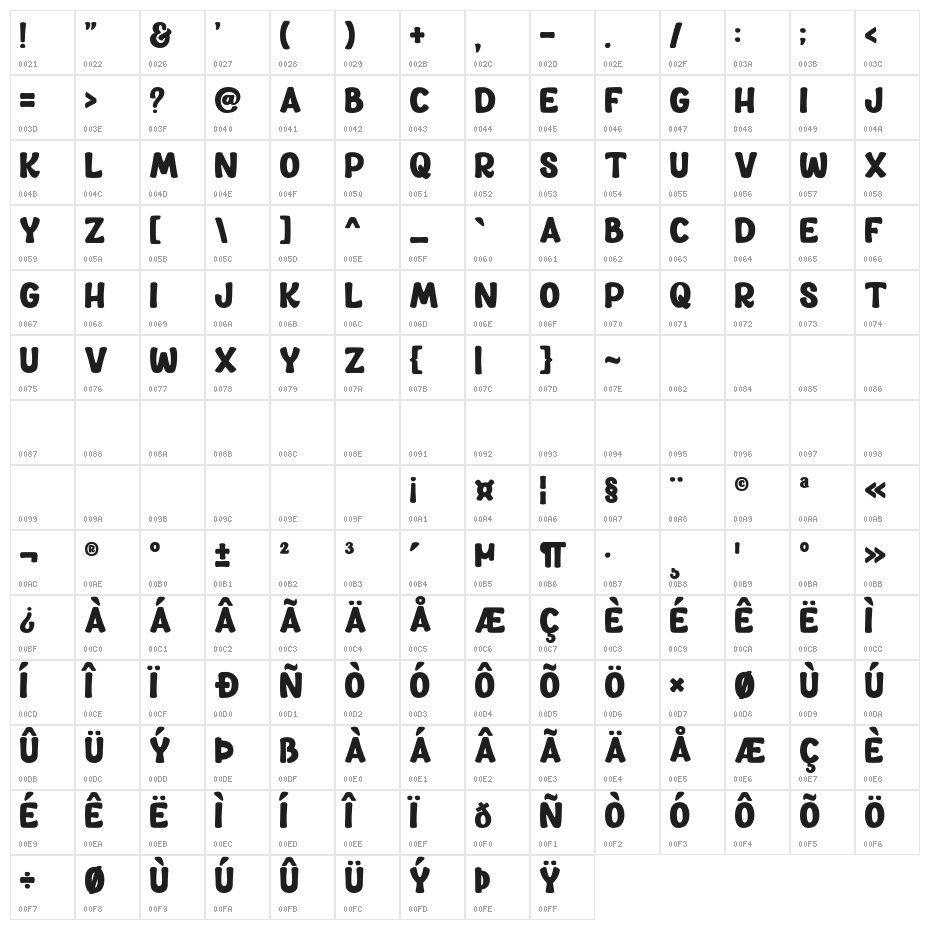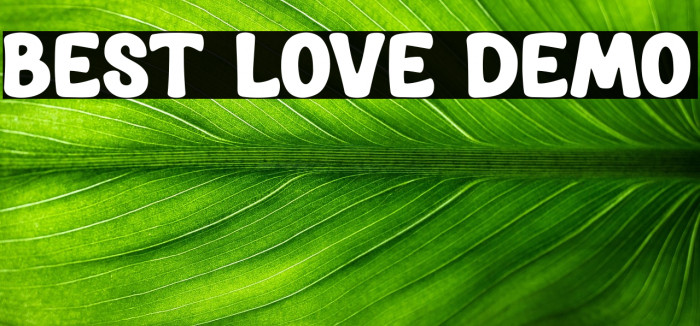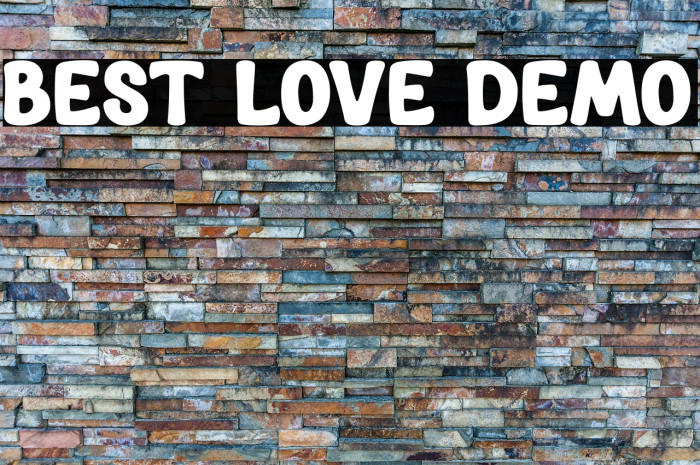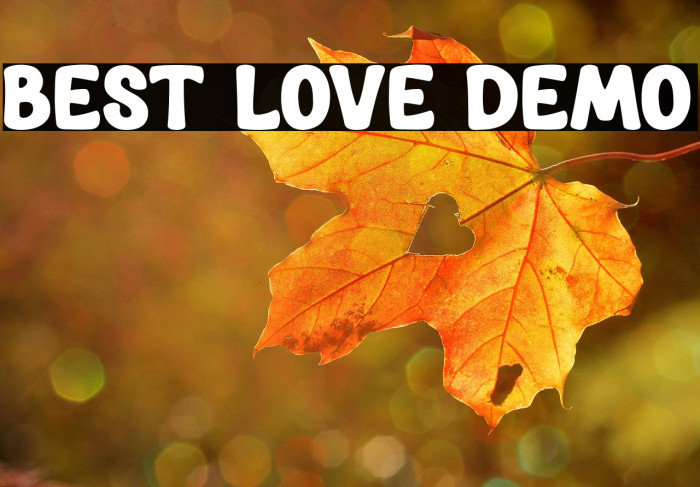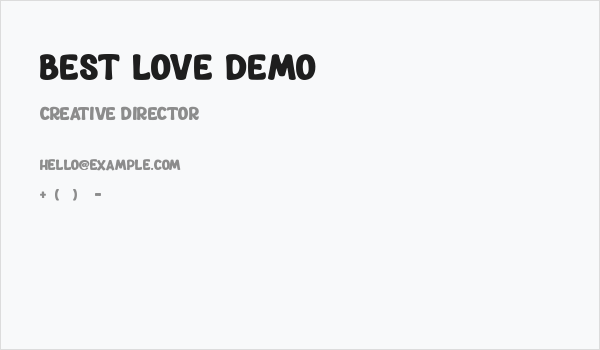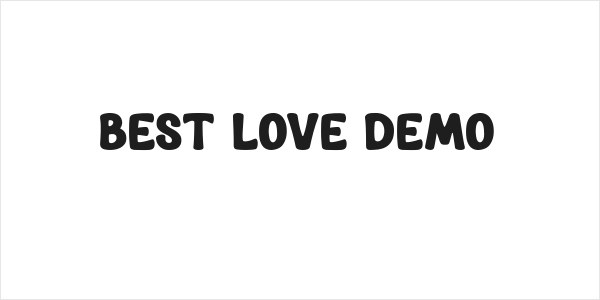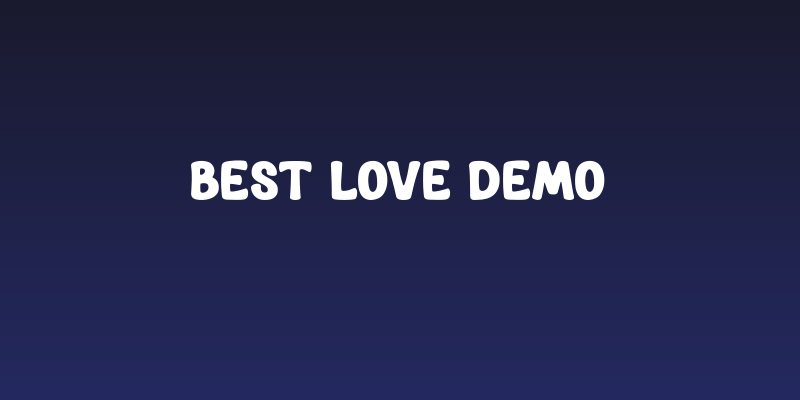
Best Love DEMO Font
Best Love DEMO Description
This playful and bold font features rounded edges and a slightly irregular shape, giving it a friendly and approachable appearance. The characters are thick and substantial, with a consistent weight throughout, making it highly legible. The font's whimsical style is accentuated by its slightly exaggerated curves and soft, flowing lines, which add a sense of movement and energy. The overall design is modern yet retains a touch of retro charm, making it versatile for various creative applications. Its unique character makes it stand out, perfect for projects that require a fun and engaging typeface.
| Overall Style | Playful, Modern, Retro |
| Proposed Projects | Ideal for children's books, playful branding, posters, and social media graphics. |